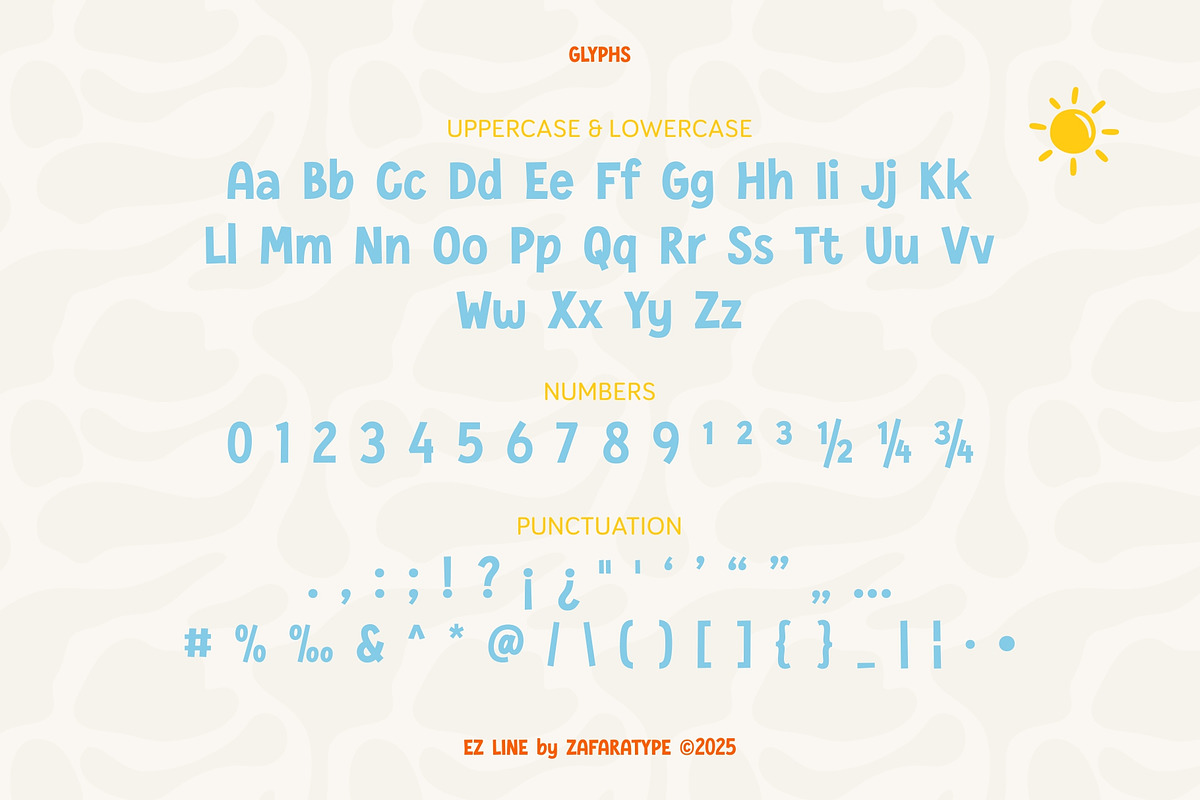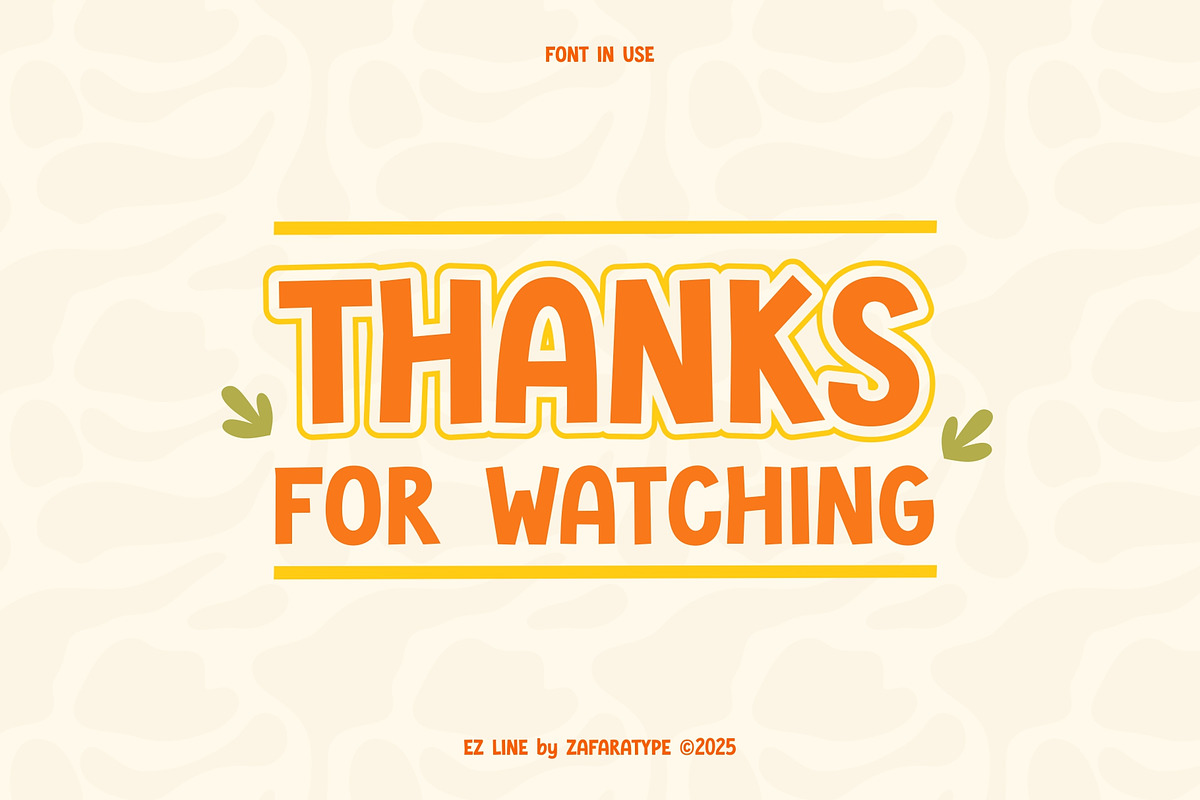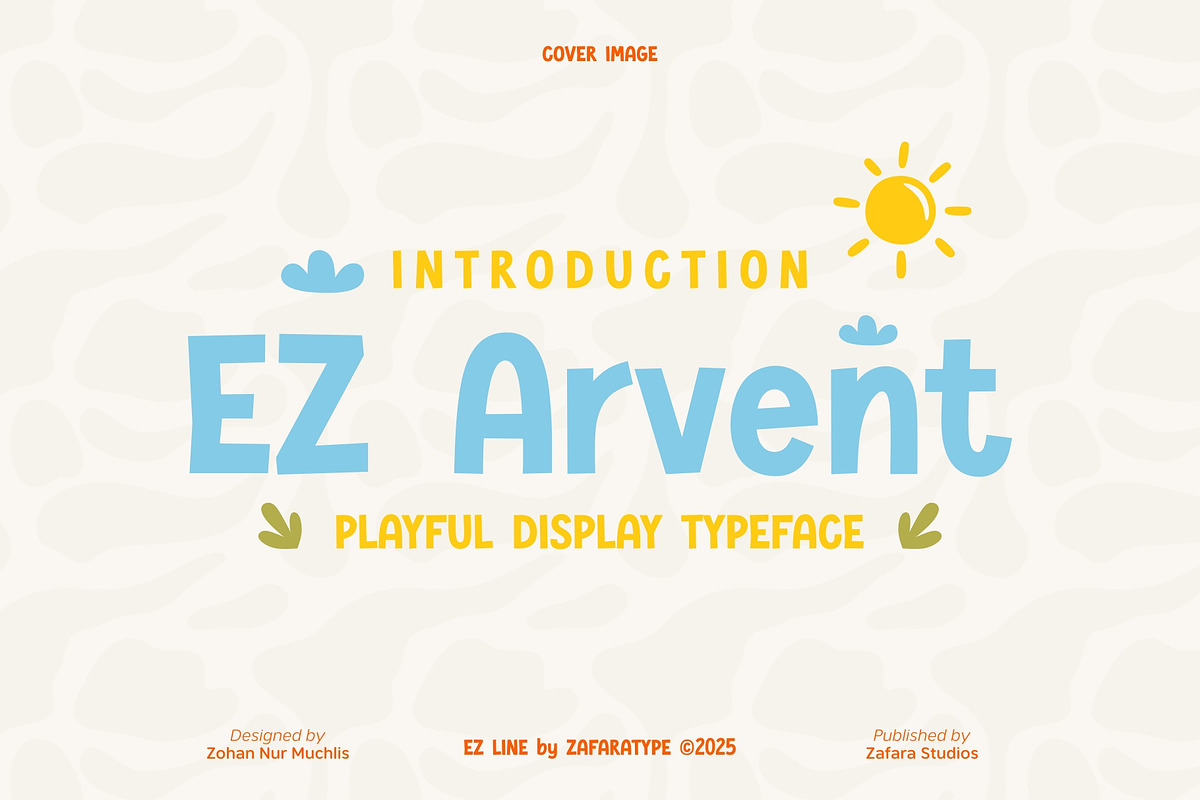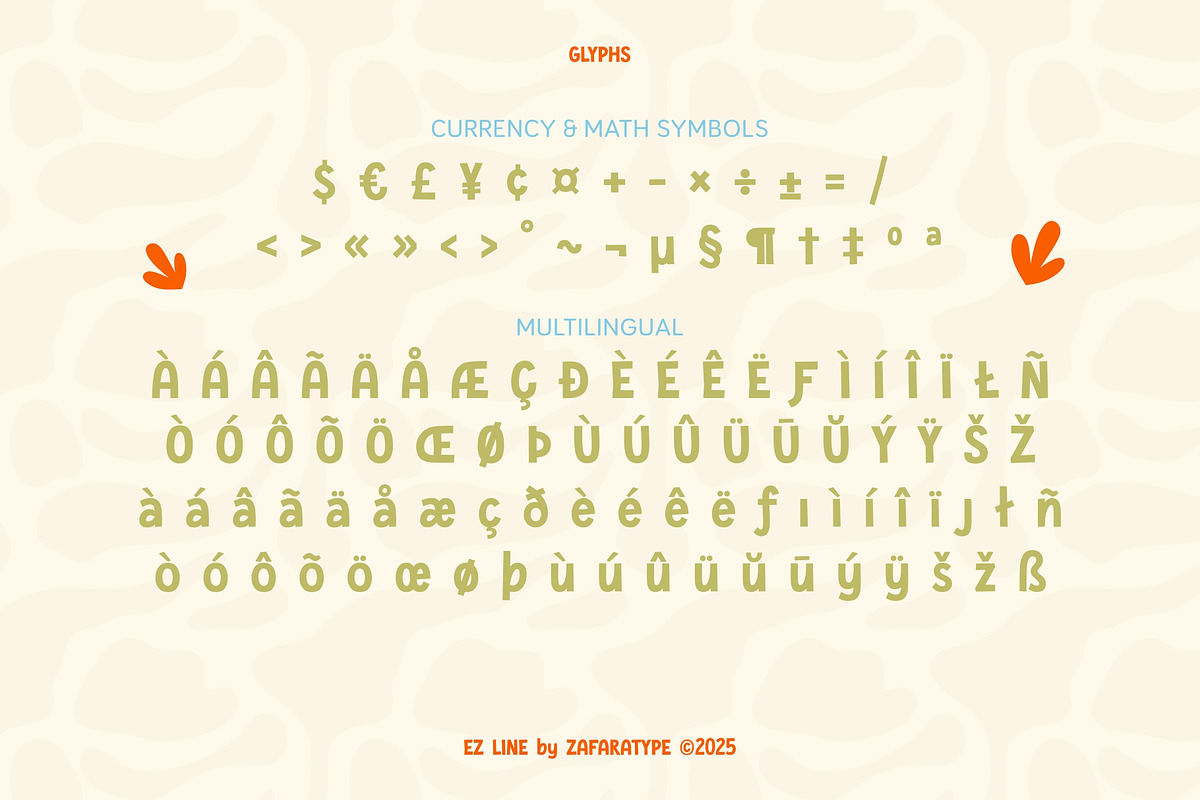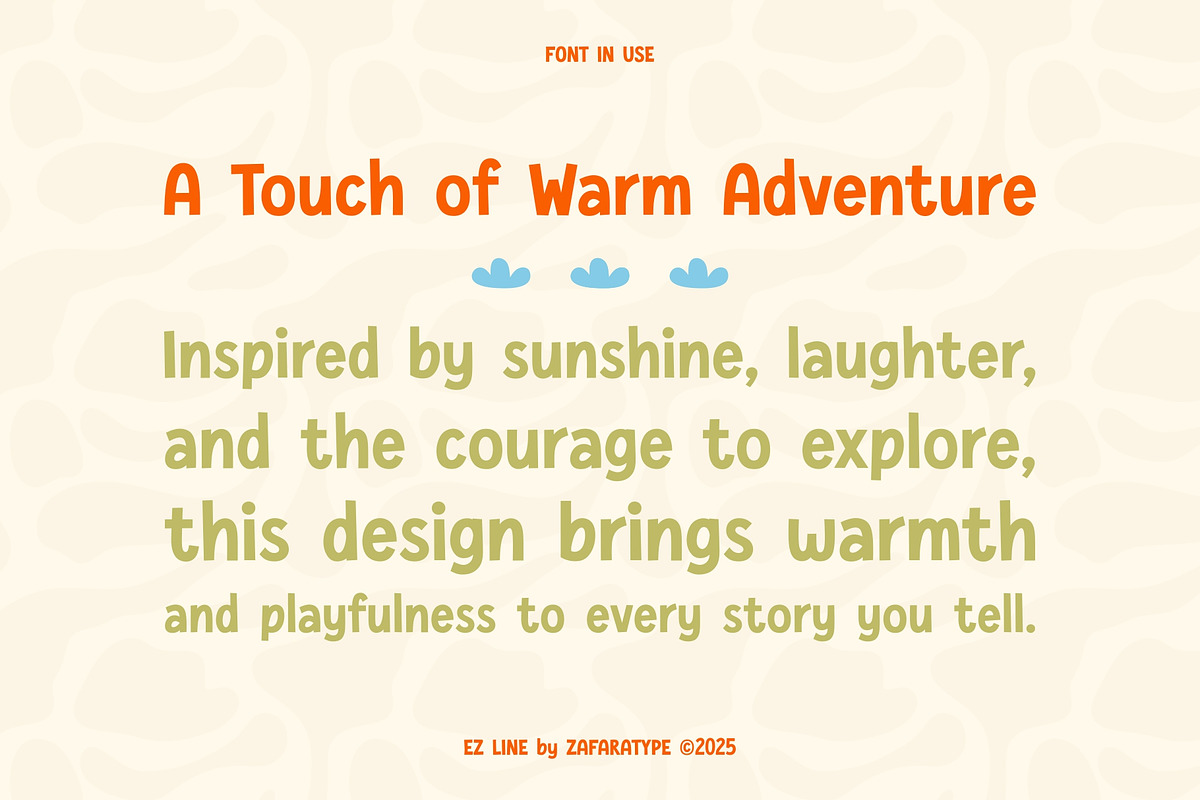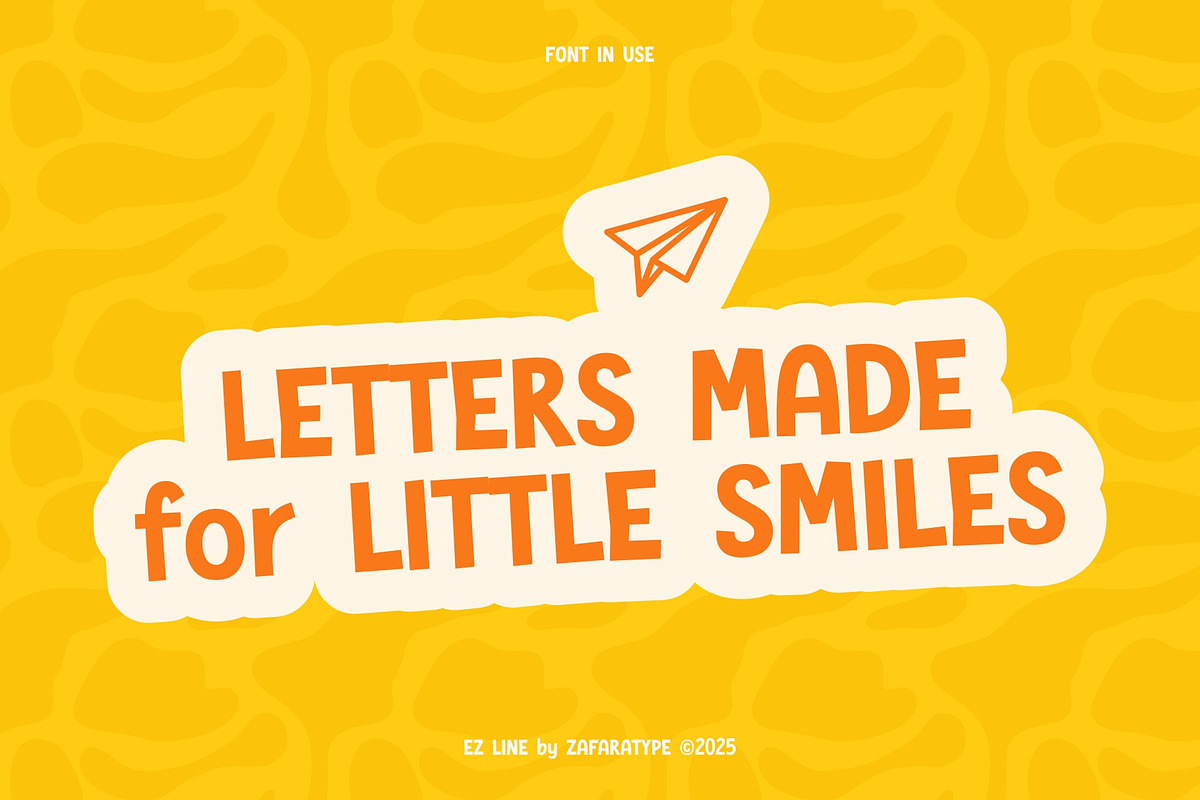
EZ Arvent
EZ Arvent is a fun and cheerful display font that captures the playful energy of retro cartoons and children’s books. With its quirky letterforms and bouncy rhythm, EZ Arvent brings a friendly, hand-crafted charm to any design.
Perfect for logos, packaging, posters, comics, games, and educational materials. Wherever you want to add creativity and joy, EZ Arvent fits right in.
The details:
- 244 glyphs: Uppercase & lowercase, Numbers & punctuation, Symbols & accents, Multilingual support
- 25 languages: Afrikaans, Albanian, Basque, Catalan, Danish, Dutch, English, Estonian, Faroese, Filipino, Finnish, French, Galician, German, Icelandic, Indonesian, Irish, Italian, Malay, Norwegian Bokmål, Portuguese, Spanish, Swahili, Swedish, Zulu